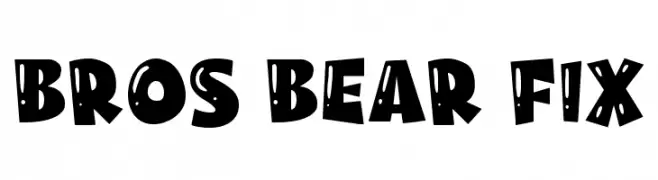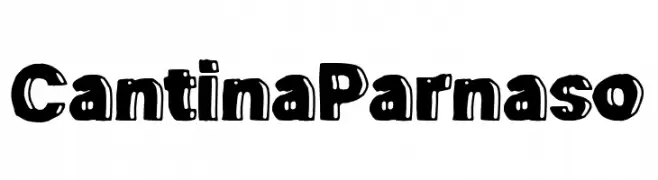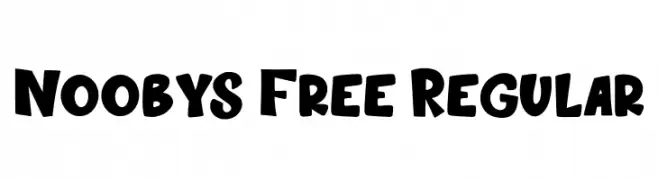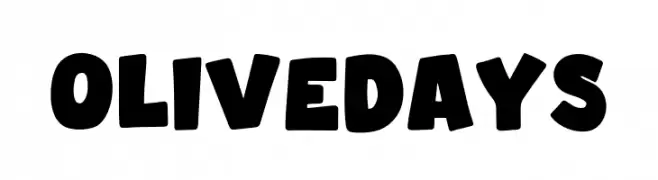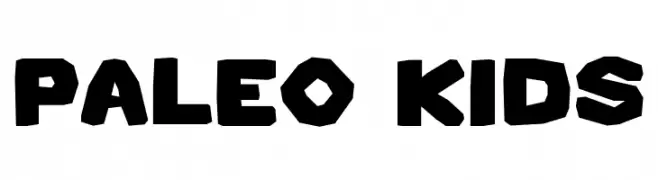
A bold, playful font with a hand-drawn, irregular style.
A bold, playful font with rounded, whimsical characters and decorative elements.
A bold, rounded font with a playful, cartoon-like style.
A bold, playful font with a hand-carved, irregular style.
A bold, decorative font with playful cut-out designs and high contrast.
A bold, playful font with cartoonish, uneven strokes and quirky cutouts.
A playful, bold font with thick strokes and rounded edges, perfect for creative designs.
A bold, playful font with exaggerated curves and a whimsical style.
A bold, rounded, and playful font with a retro vibe.
A bold, playful font with rounded, irregular shapes.